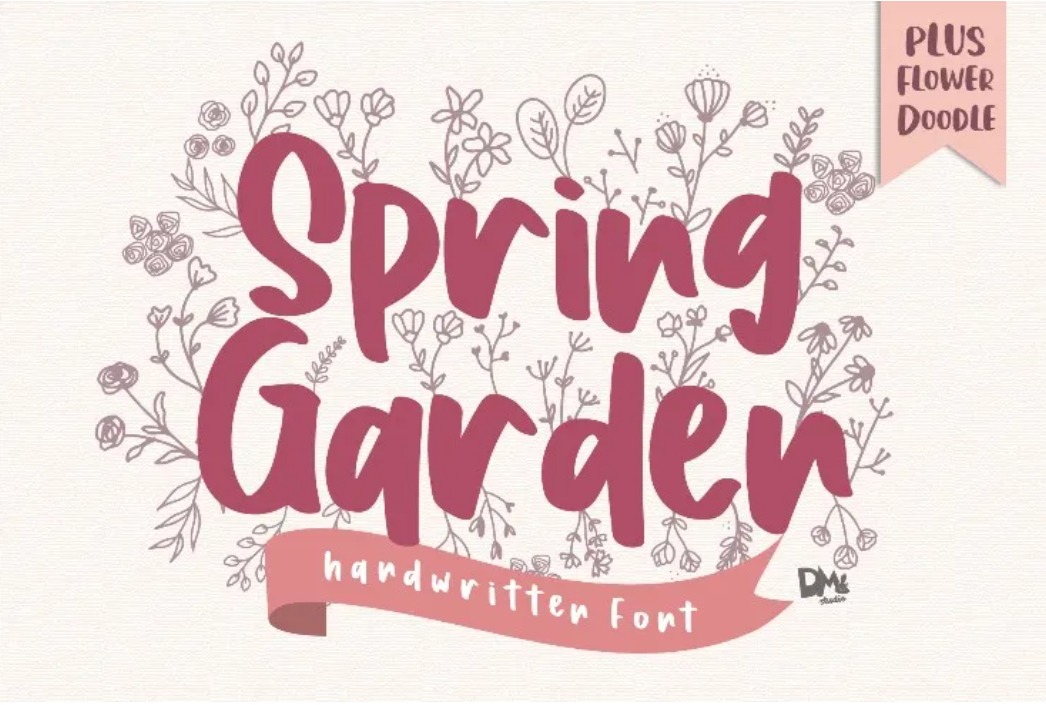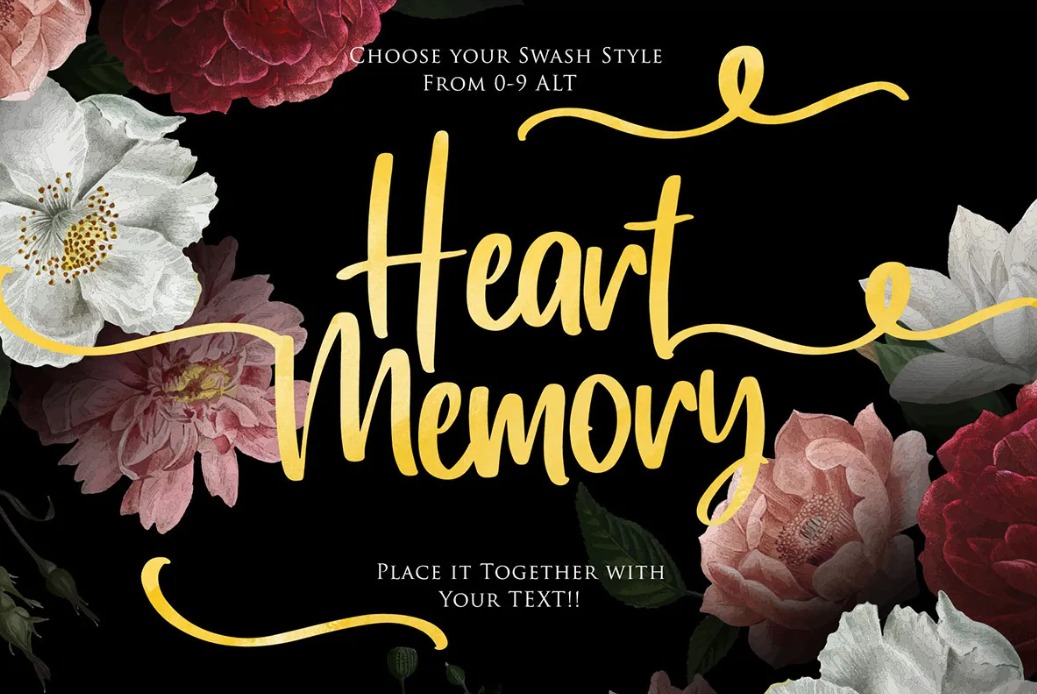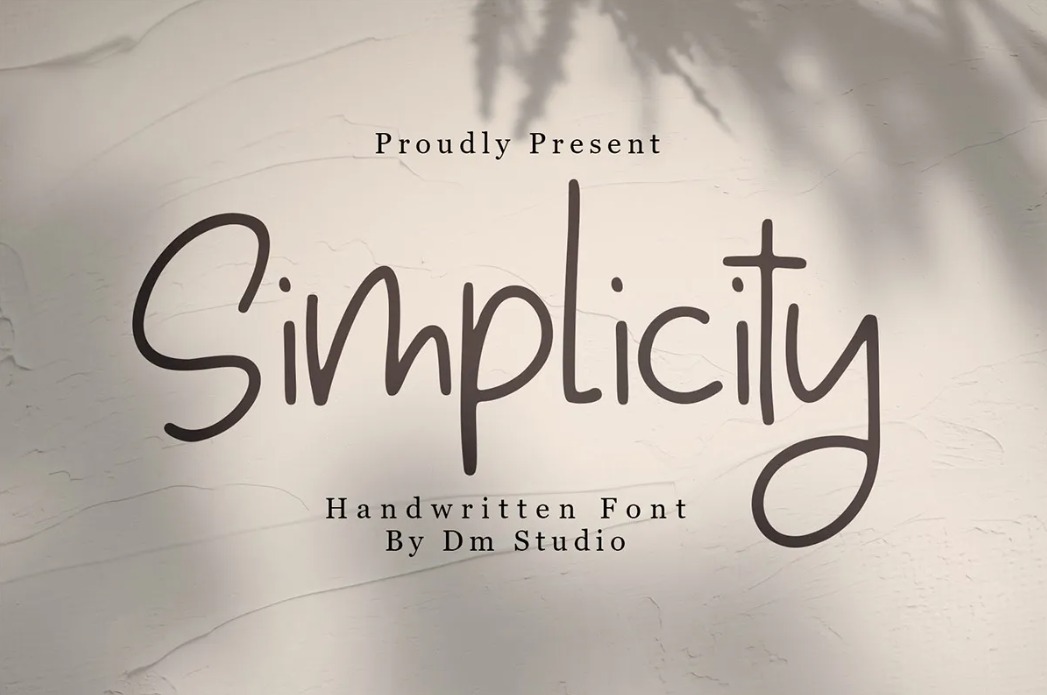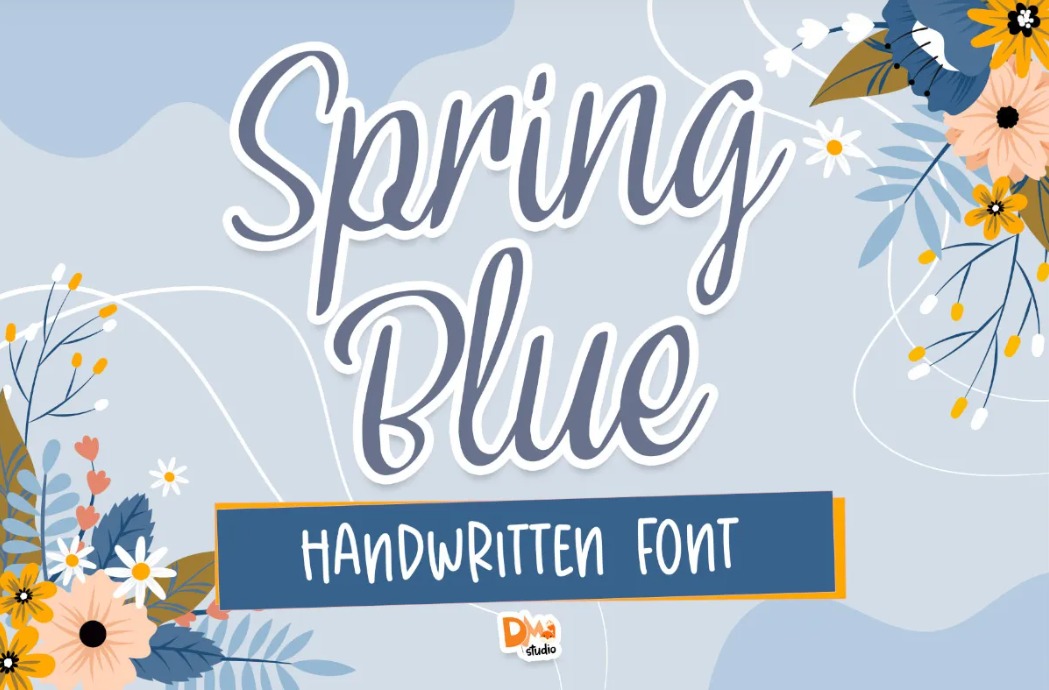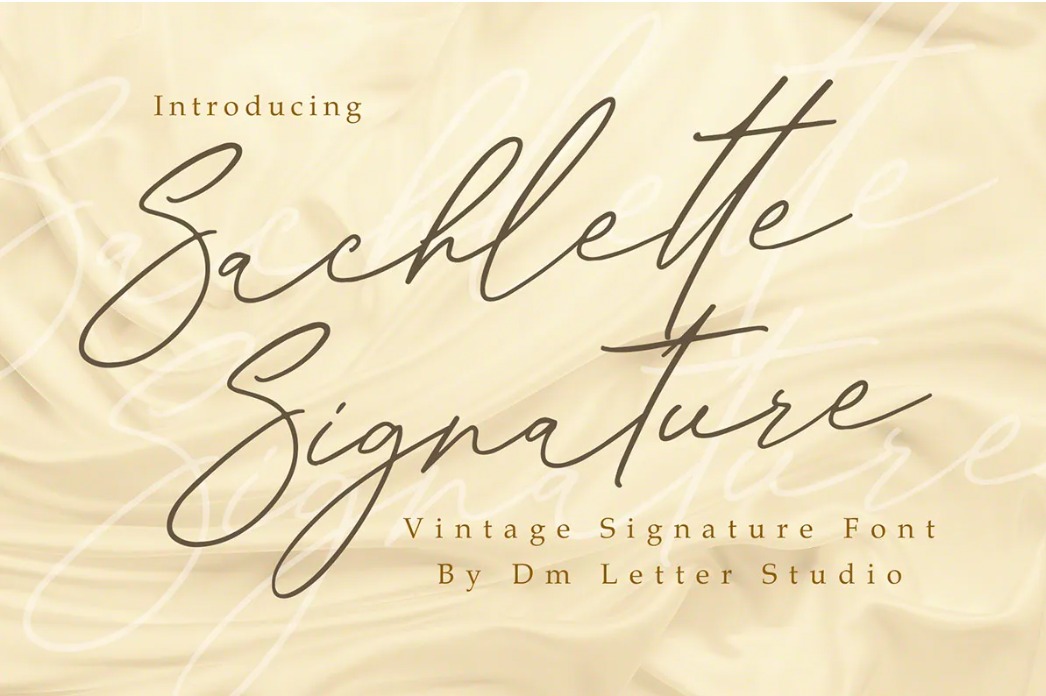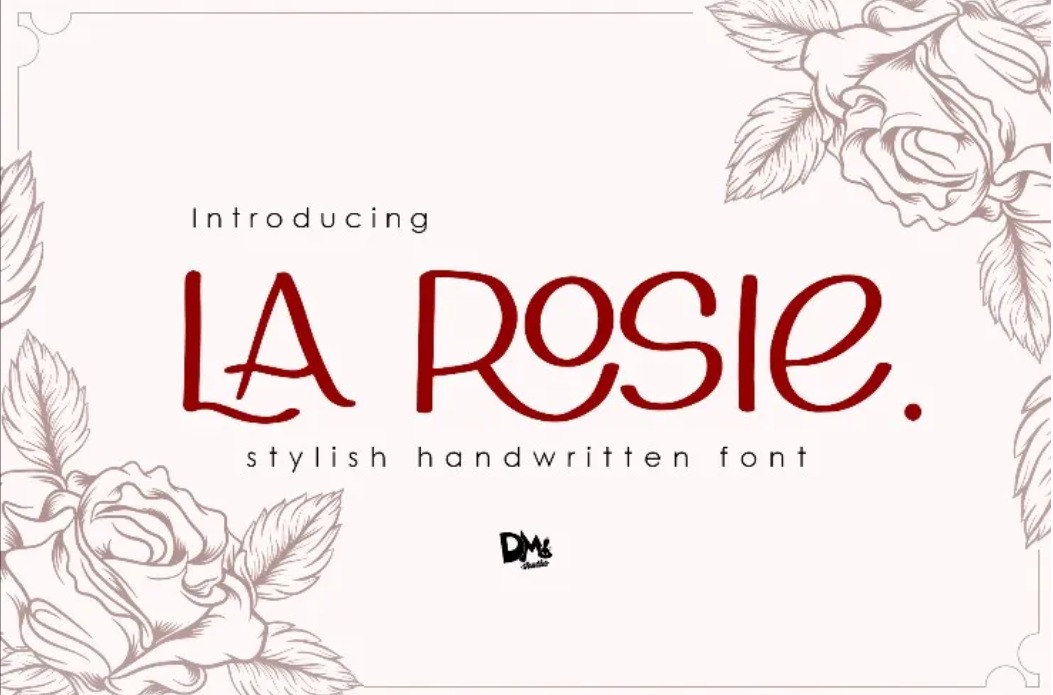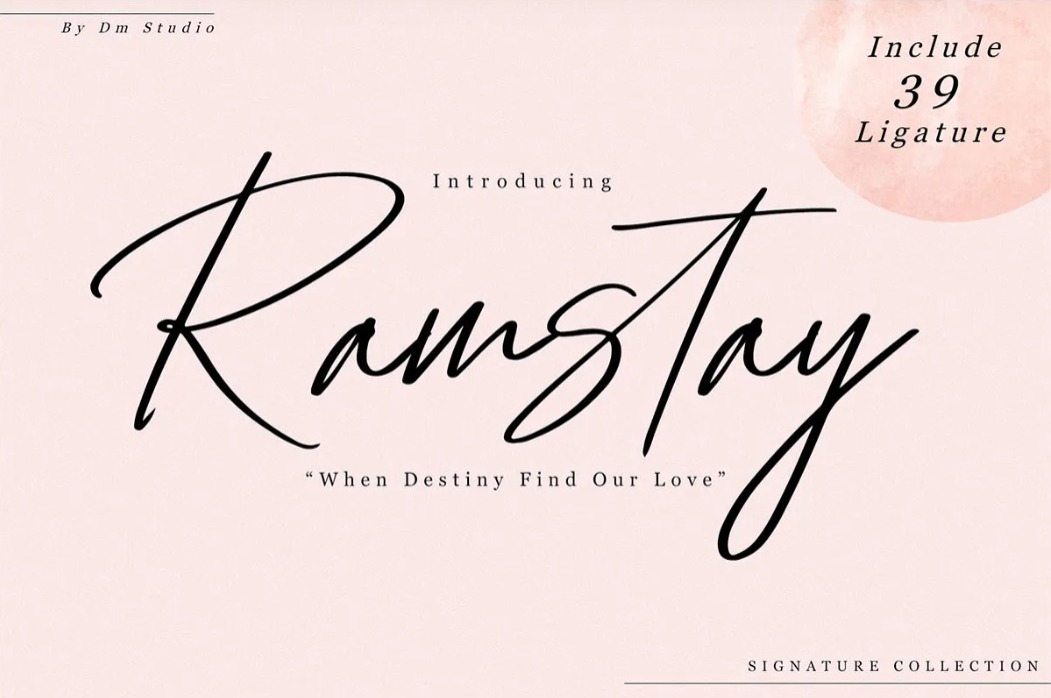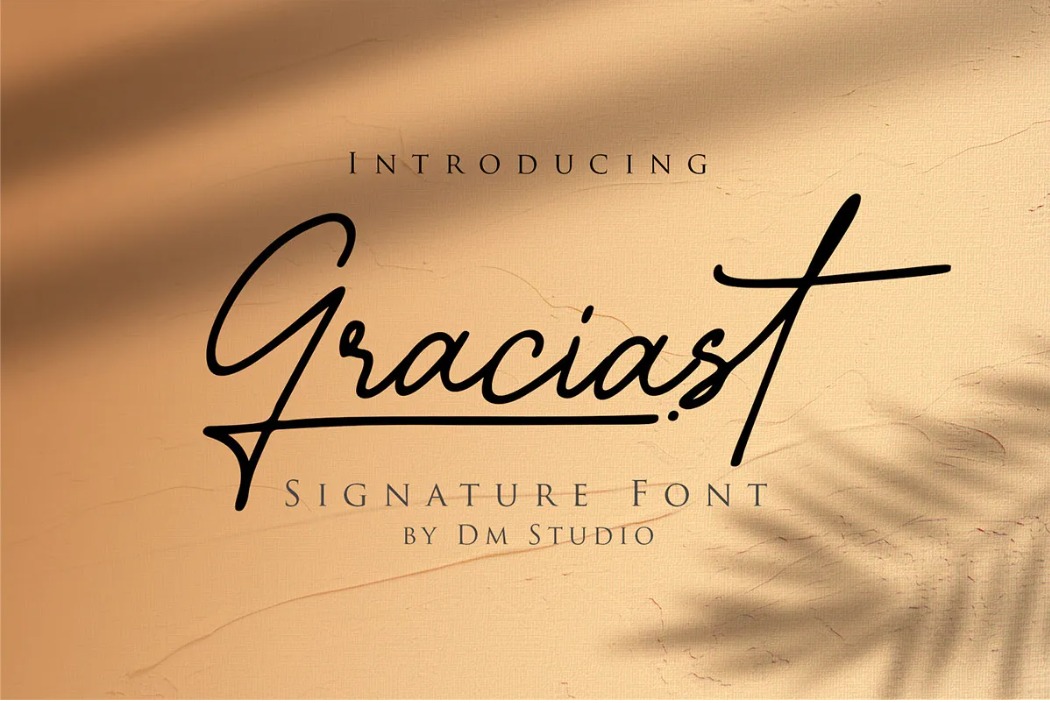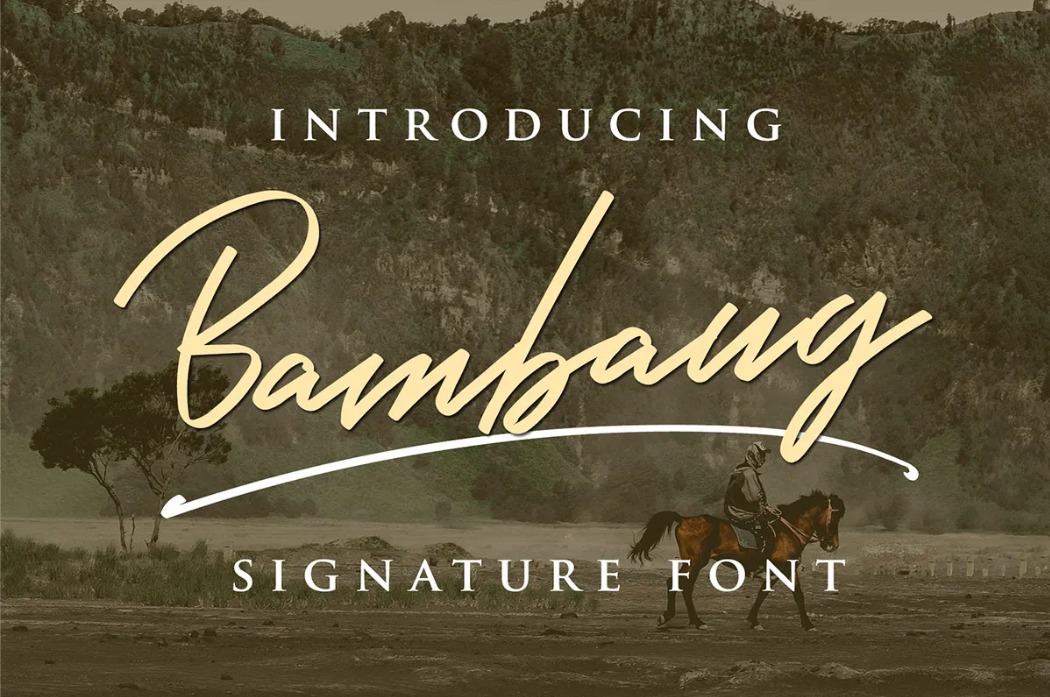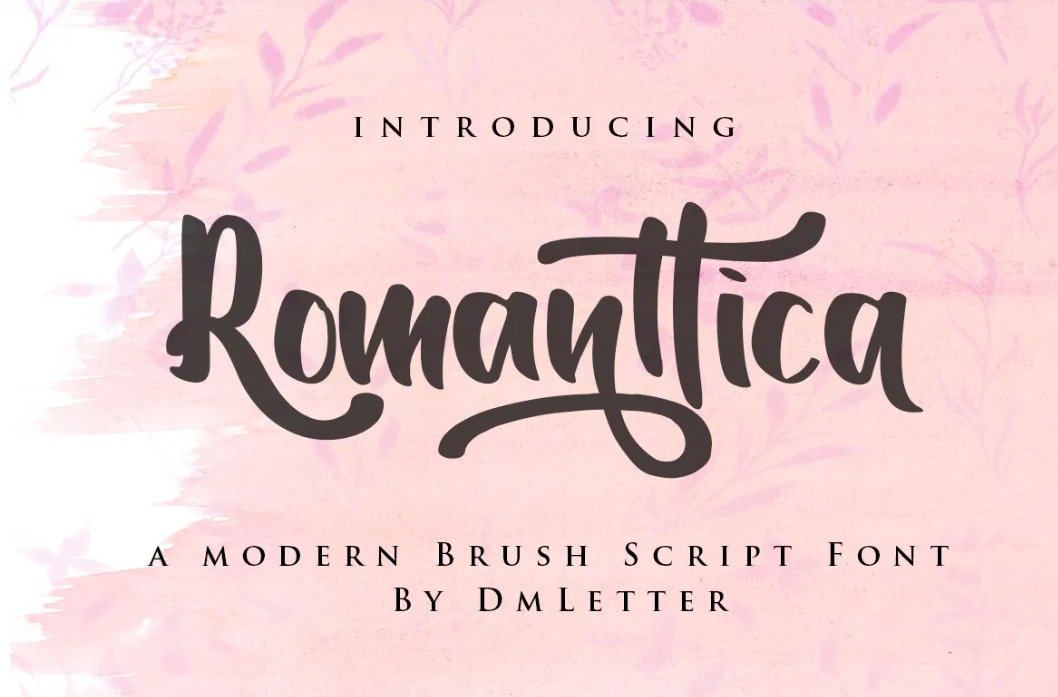
30 Opulent Wedding Fonts for Remarkable Invitation Designs
Since a wedding is a sacred moment and will be a milestone in the lives of the bride and groom, make this moment noteworthy. You can use lavish wedding fonts in your invitation design to astonish the guests.
Scaling up your wedding design project will be easy-peasy if you have lots of sophisticated and creative font ideas for your design. Let’s unlock it by exploring the following article.
30 Opulent Wedding Fonts
Here are 30 font ideas to give a touch of luxury and elegance to wedding typography.
1. Simple Things Font
Simple Things Wedding Font
Simple Things Wedding Font | Image Source: DM Studio
Presenting a luxurious and classy taste will be effortless if you use the Simple Things font for wedding invitations.
2. Spring Blue Font
Spring Blue Handwritten Font
Spring Blue Handwritten Font | Image Source: DM Studio
This modest handwritten font of Spring Blue is an excellent choice since it’s aesthetic with great readability.
3. Rochette Font
Rochectte Wedding Invitation Font
Rochectte Wedding Invitation Font | Image Source: DM Studio
If you want to use wedding invitation fonts that emphasize contemporary taste, Rochette is an excellent choice.
4. Shadow Blush Font
Shadow Blush A Stylish Signature Font
Shadow Blush A Stylish Signature Font | Image Source: DM Studio
The solid thin strokes and large looped letters of the Shadow Blush font will make your text in invitation or branding appear dramatically plush.
5. Papillon Blue Font
Blue Papillon Handwritten Wedding Font
Blue Papillon Handwritten Wedding Font | Image Source: DM Studio
Make your wedding invitation singular by applying the Papillon Blue font. This non-cursive font will infuse cuteness and perky nuance.
6. Artsy Font
Artsy Handwritten Font
Artsy Handwritten Font | Image Source: DM Studio
The Artsy handwritten font is one of the alternative wedding fonts that is suitable to highlight your creativity and sense of intimacy with a spellbinding essence.
7. First Love
First Love Handwritten Wedding Invitation Font
First Love Handwritten Wedding Invitation Font | Image Source: DM Studio
First Love font is suitable for a romantic, adorable, and chummy wedding invitation and designs concept.
8. Blush Lovely Font
Blush Lovely Handwritten Font
Blush Lovely Handwritten Font | Image Source: DM Studio
Blush Lovely font is effective in creating stunning visuals with a delicate and romantic flair with its remarkable strokes contrasts.
9. Sweet Bless Font
Sweet Bless Gentle and Elegant Wedding Font
Sweet Bless Gentle and Elegant Wedding Font | Image Source: DM Studio
Organic letters with gentle strokes from Sweet Bless Font will be a great option for wedding invitations, children’s book covers, or stationery designs.
10. Spring Garden Font
Spring Garden Font for Garden Party Concept
Spring Garden Font for Garden Party Concept | Image Source: DM Studio
Looks like the Spring Garden is amongst the wedding invite fonts that spark the warmest message with its genuine brush strokes.
11. Modesty Script Font
Modesty Script Handwritten Wedding Invitation Font
Modesty Script Handwritten Wedding Invitation Font | Image Source: DM Studio
Sparse kerning and cursive letter design without swashes make the Modesty Script font bring elegance through simplicity.
12. Hachiko Font
Hachiko Wedding Font
Hachiko Wedding Font | Image Source: DM Studio
Hachiko Handwritten font has smooth cursive and strokes which reveals authenticity. The ideal pair for formal designs.
13. Heart Memory Font
Heart Memory Opulent Wedding Invitation Font
Heart Memory Opulent Wedding Invitation Font | Image Source: DM Studio
The alternate swash of the Heart Memory font is effective for ramping up wedding invitation typography designs.
14. Secret Love Font
Secret Love Wedding Font
Secret Love Wedding Font | Image Source: DM Studio
Secret Love is surely one of the wedding invitation fonts that look romantically intimate with its simple display. Talk about the “less is more” power.
15. Simplicity Font
Simplicity Lavish Handwritten Wedding Font
Simplicity Lavish Handwritten Wedding Font | Image Source: DM Studio
The imbalanced letter design makes the Simplicity font look sneaky and elegant with its natural flow.
16. Hellena Font
Hellena Exquisite Wedding Font
Hellena Exquisite Wedding Font | Image Source: DM Studio
Hellena font has built-in ligatures, alternate letters, and swashes that can jazz up your designs.
17. Bigbang Font
Bigbang Classy Wedding Invitation Font
Bigbang Classy Wedding Invitation Font | Image Source: DM Studio